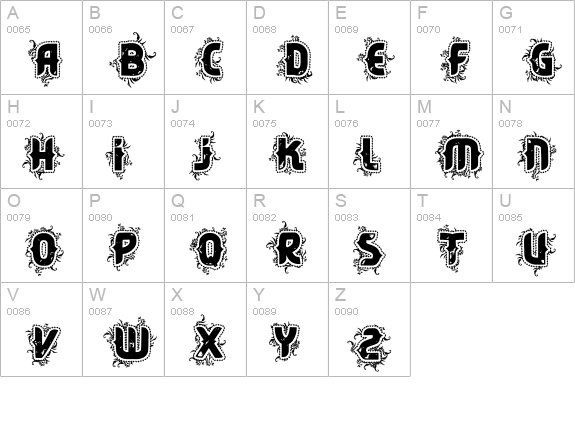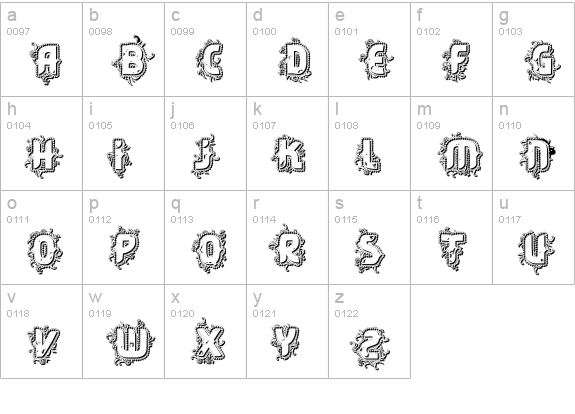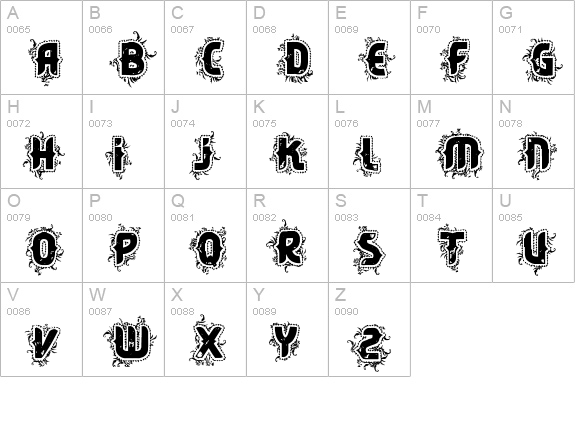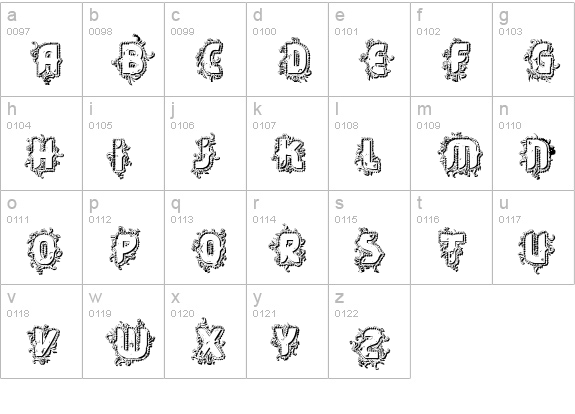
VTKS CORE Font Details
VTKS CORE font is a modern and stylish typeface that exudes creativity and individuality. With its unique and edgy design, this font is perfect for a wide range of projects, from branding to social media graphics. The sleek lines and bold strokes of VTKS CORE make it stand out from the crowd, adding a touch of sophistication to any design. The best part? VTKS CORE font is completely free to download at FontsMarket.com. This means you can easily add this eye-catching font to your collection without breaking the bank. Whether you're a graphic designer, a blogger, or a business owner looking to elevate your brand, VTKS CORE font is a versatile and stylish choice that will make your projects pop. So why wait? Head over to FontsMarket.com today to download VTKS CORE font for free and start using this modern and trendy typeface in your designs.